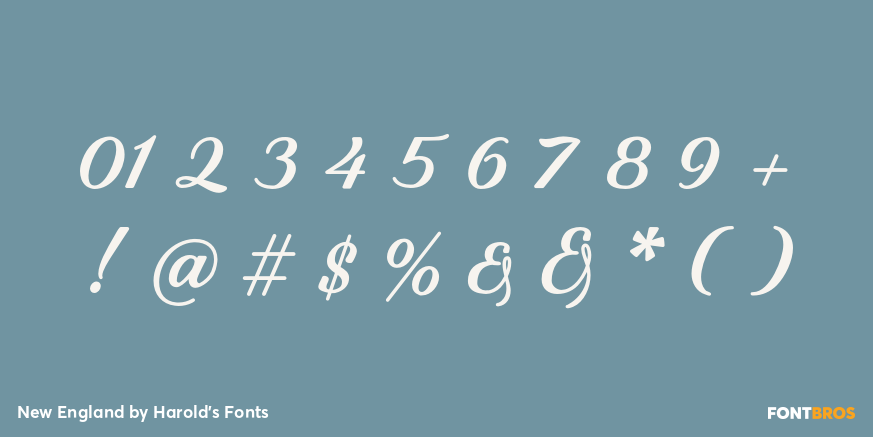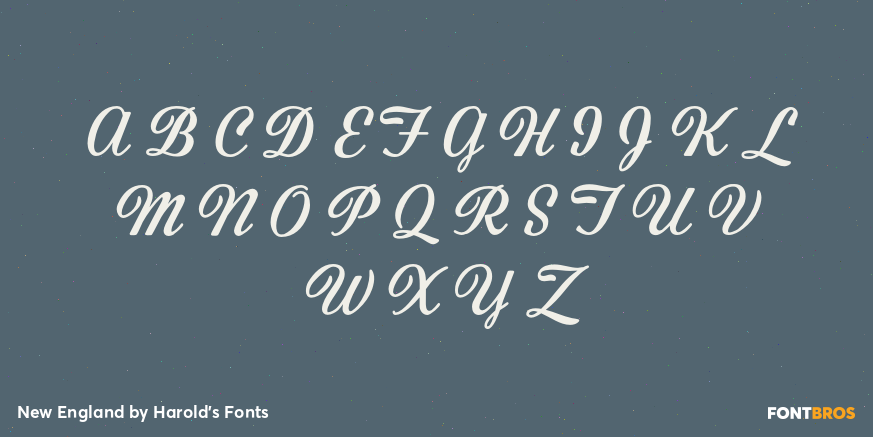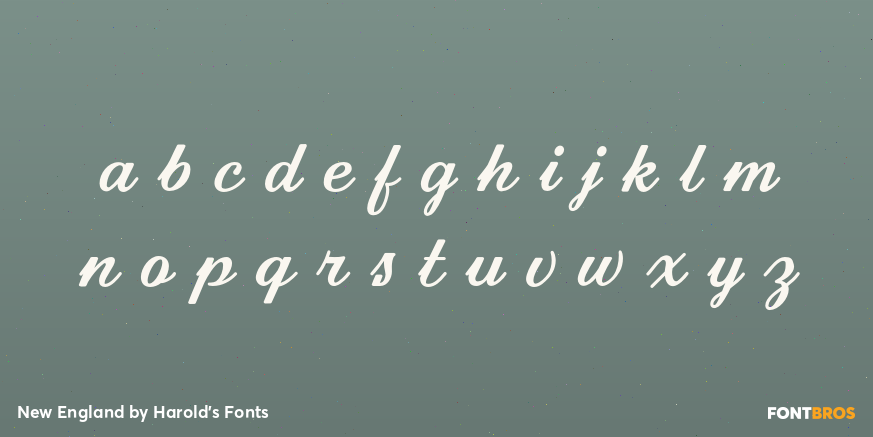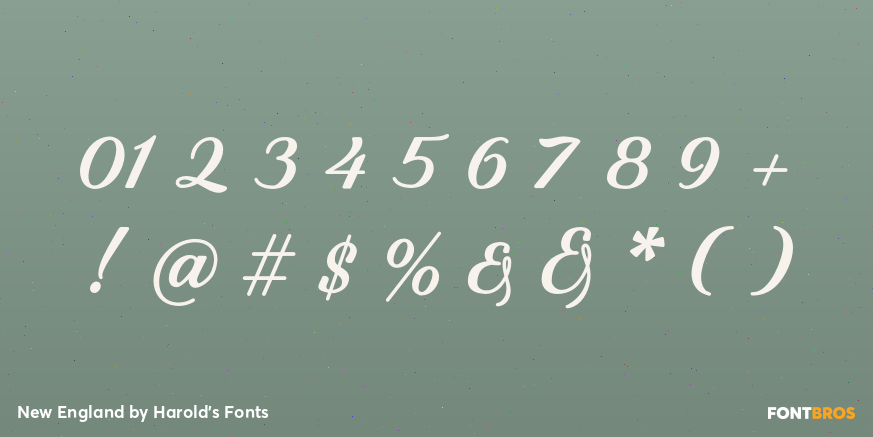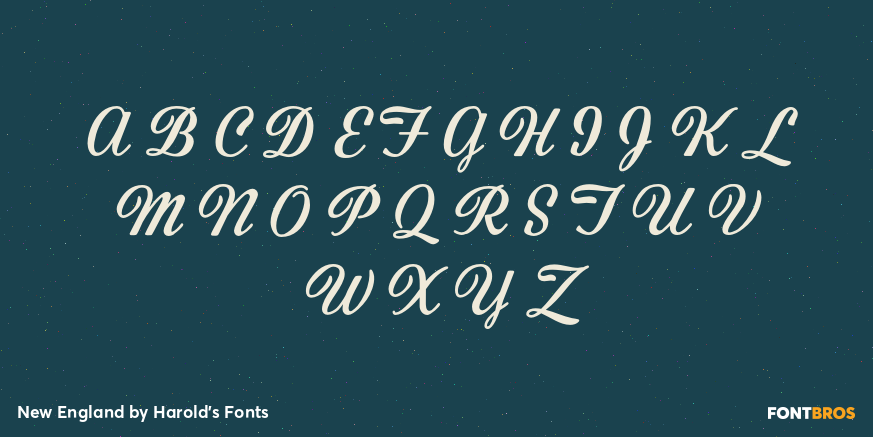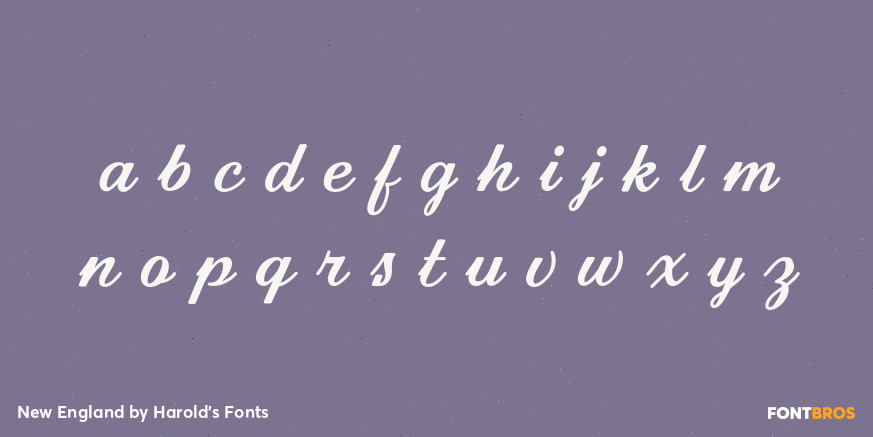
New England
Font Family by Harold's Fonts
NEW ENGLAND is a handsome script; it's not too fancy, too stylized, or too contrasty, problems I find with too many script fonts. The film itself is excellent and the restored version is well worth watching if only for Bernard Herrmann's score. It was inspired by the handlettered titles of the film The Devil and Daniel Webster (1941). Seems like a good choice for team jerseys, so I've included a final swash in the swung dash (~ ASCI tilde) position.